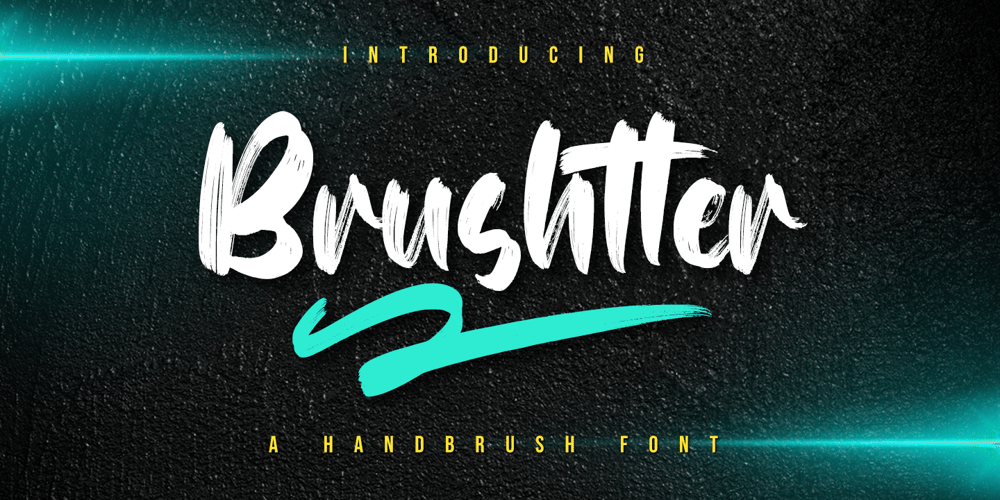
Brushtter Font Family was designed by Hayinah and published by Rockboys Studio. Brushtter contains 2 styles and family package options. Brushtter is a modern brushed display font, incredibly adaptable to all sorts of urban or street related designs. It is suitable for any branding, product packaging, invitation, quote, label, poster, logo that you wish to create.PUA encoded = Accessible in the Adobe Illustrator, Adobe Photoshop, Adobe InDesign, even work on Microsoft Word. PUA Encoded Characters – Fully accessible without additional design software.